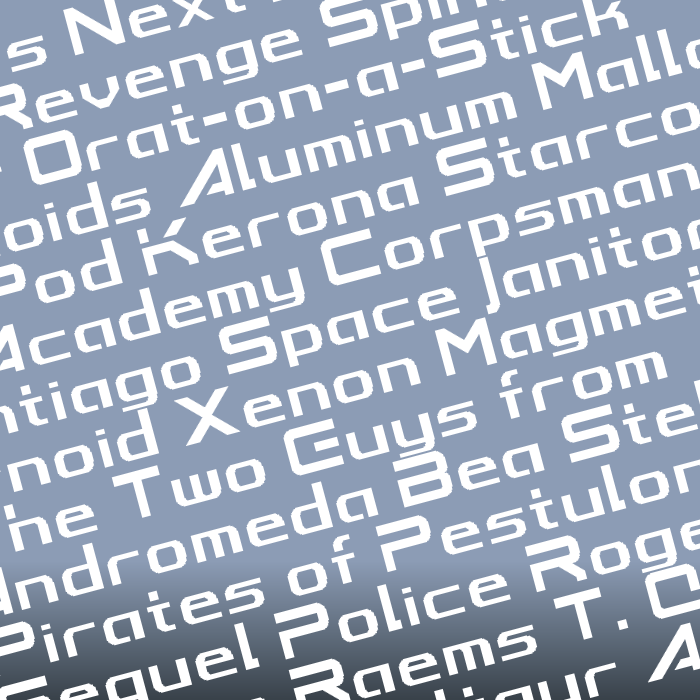
Very good "smoothing process", especially with the lowercase. Congrats.
@elmoyenique - Gracias, amigo.  The strong pixel design made this one rather easy, and I'm pleased it turned out so well.  It's now one of my favorite non-pixel fonts!  :^)
Thank you so much Goatmeal for this Space Quest 6 font! I want to change the subtitles in the original version in one of the intro videos of the game and finally found the perfect font! Also, your retrogaming fonts are all really good :^)
@Thpwg - You are most welcome, and thank you for the kind words.  The Space Quest Historian also uses this version for his news updates, and I would love to see your project when finished!  :^)